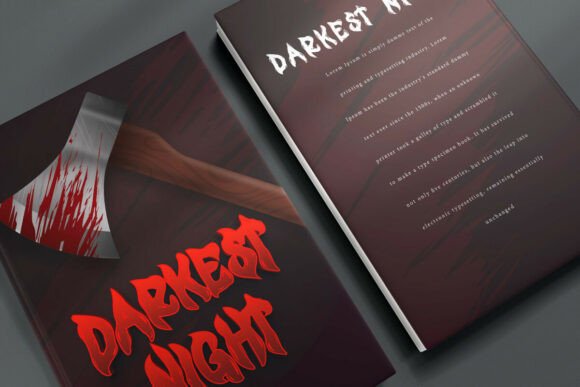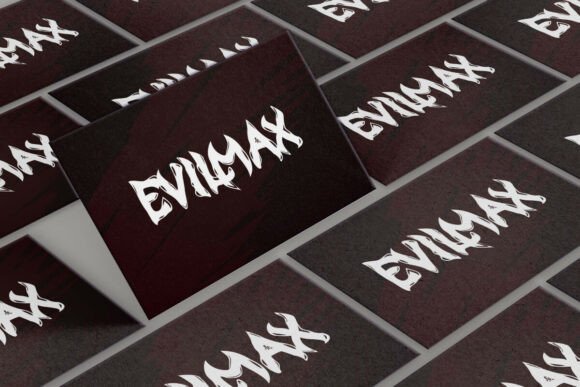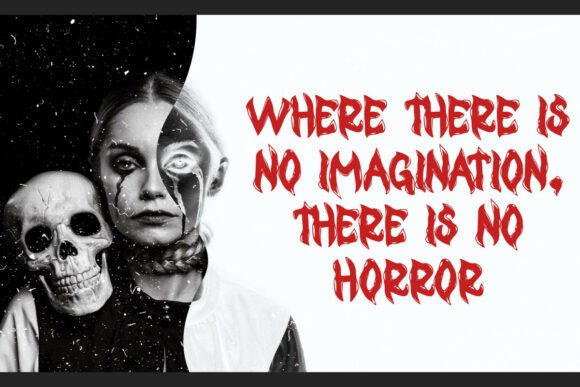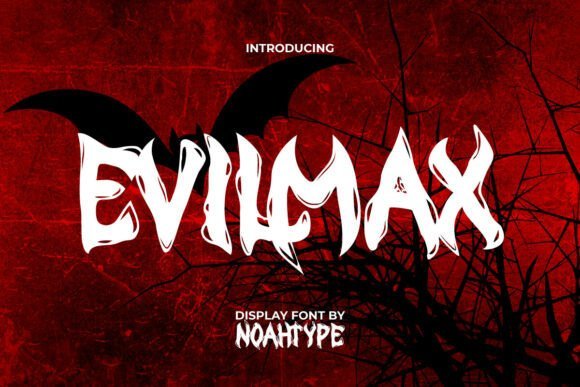
Introduction to Evilmax Font
Evilmax Font is a horror, creepy display font with a sinister feel by NoahType.
This font can give a horror and mysterious impression to every design you create, such as brand images, custom designs, invitations, labels, marketing materials, menus, posters, printing, product packaging, quotes, signage, websites, and many more Unleash the shadows with Evilmax font, a chilling horror display typeface designed by NoahType to send shivers down your audience’s spine.
Key Features of Evilmax Font
Why Choose Evilmax Font?
Evilmax Font offers exceptional quality and versatility, making it a valuable addition to your design toolkit. Whether you’re creating for personal projects or commercial use, Evilmax Font delivers professional results.